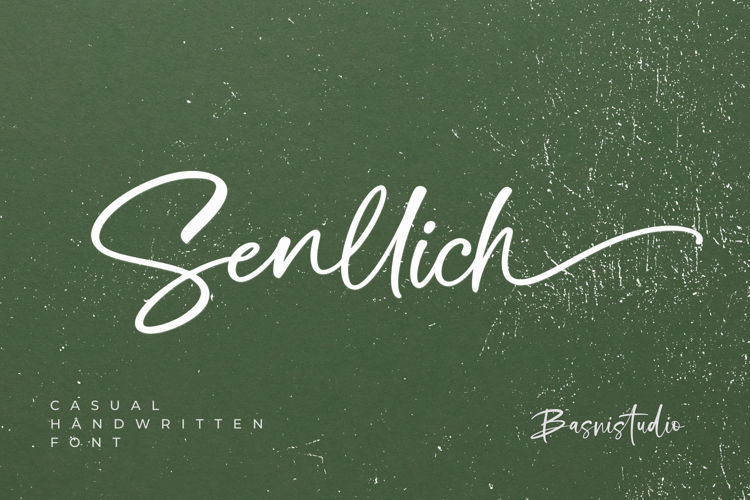
Senllich Font
INTRODUCING Senllich a Casual Handwritten Font
Senllich is a casual handwritten font that flows effortlessly, just like a love letter written by hand.